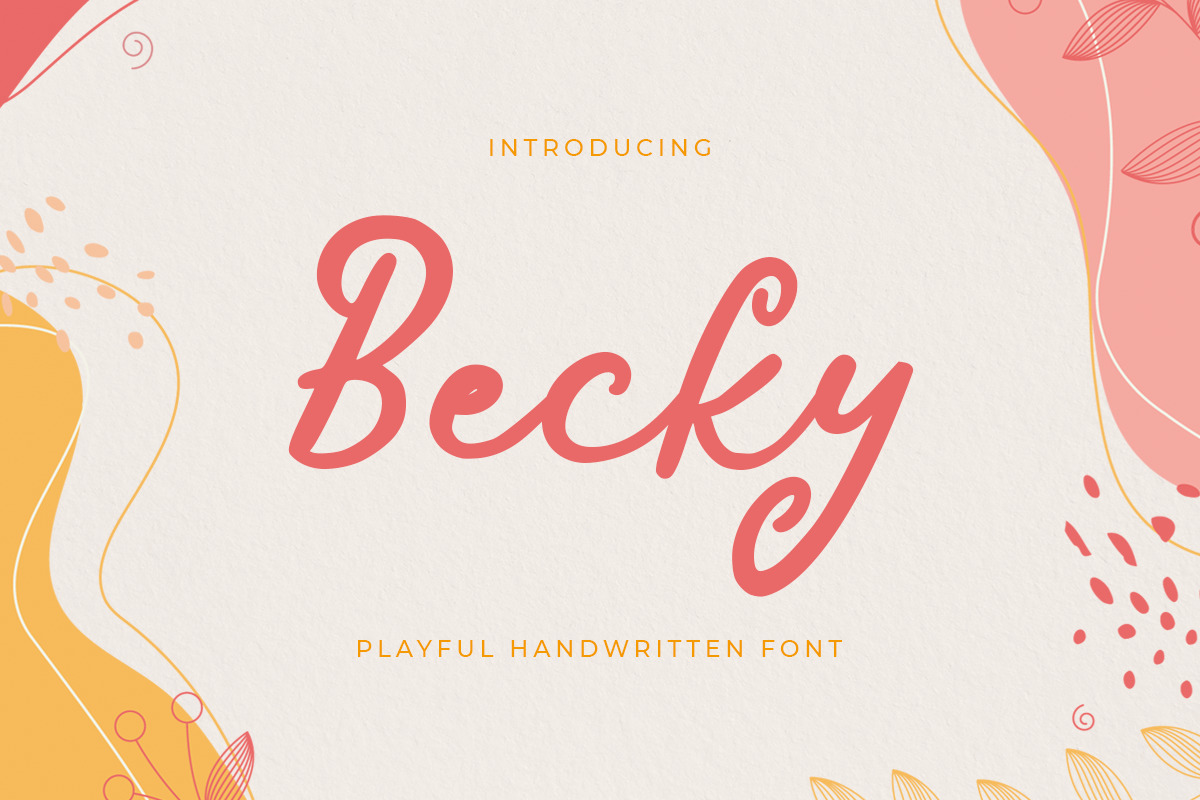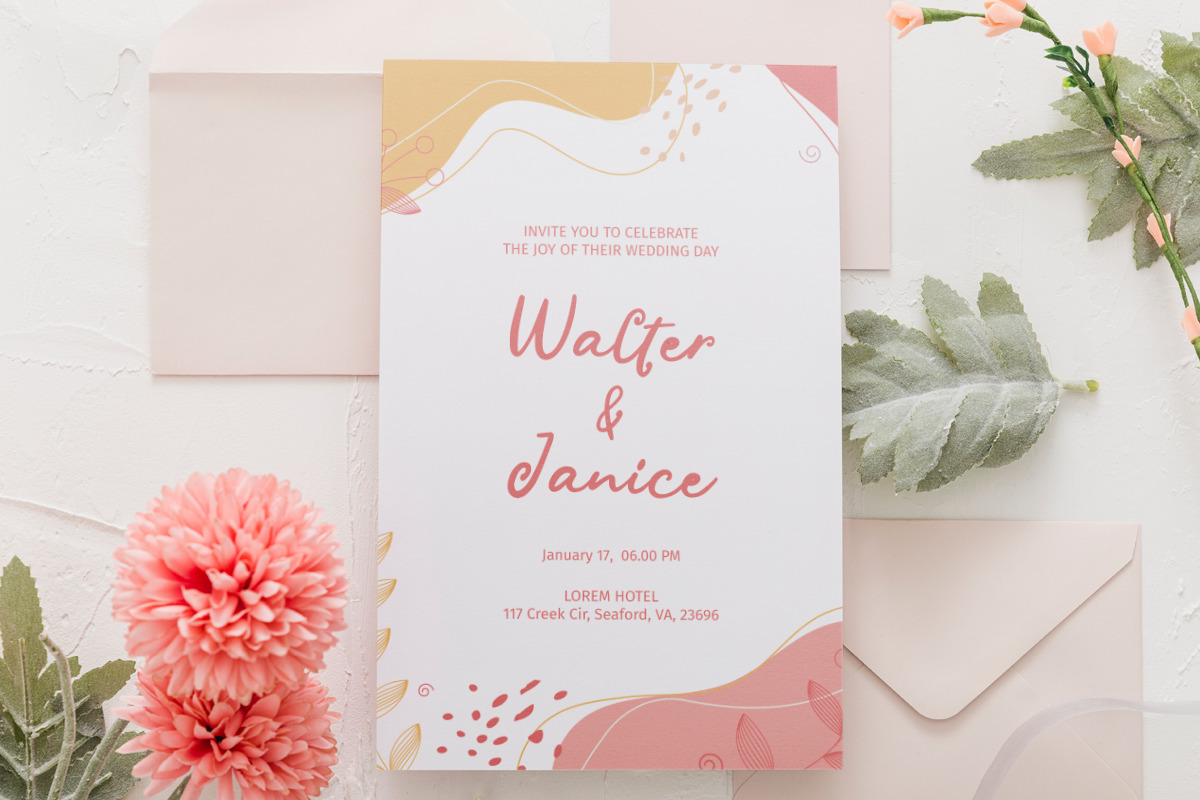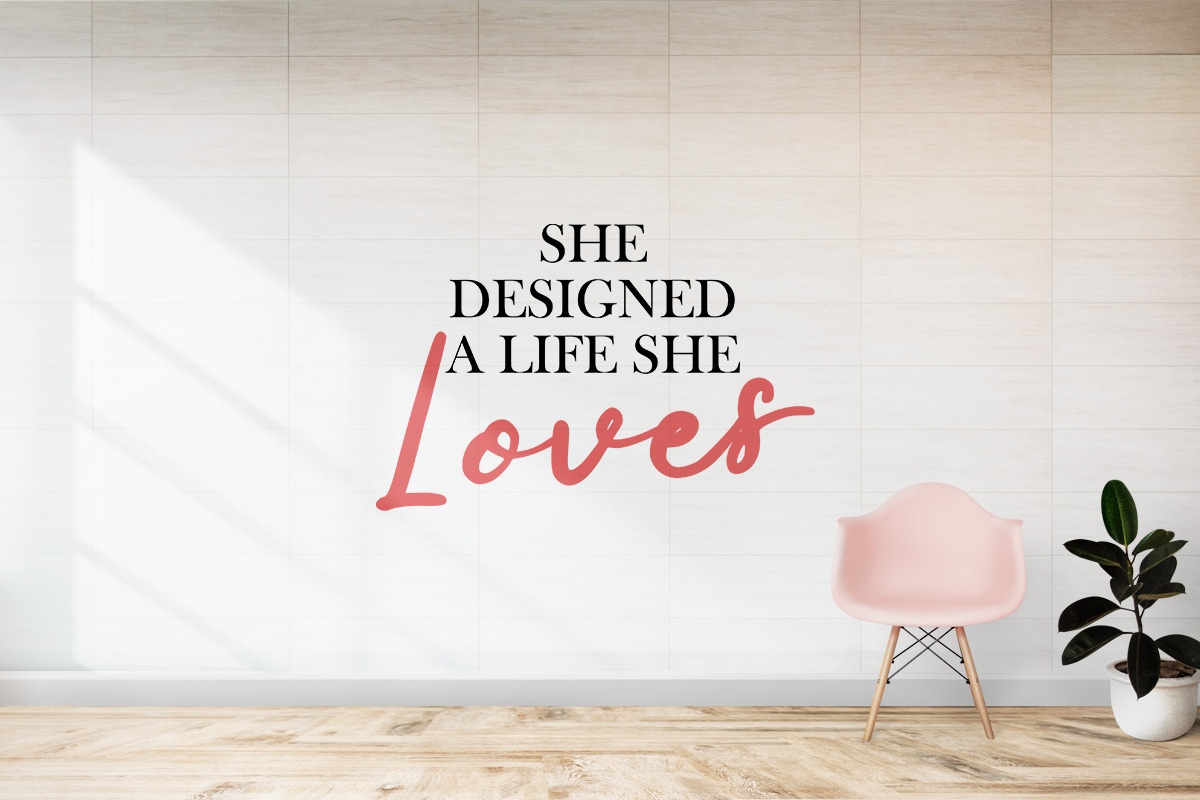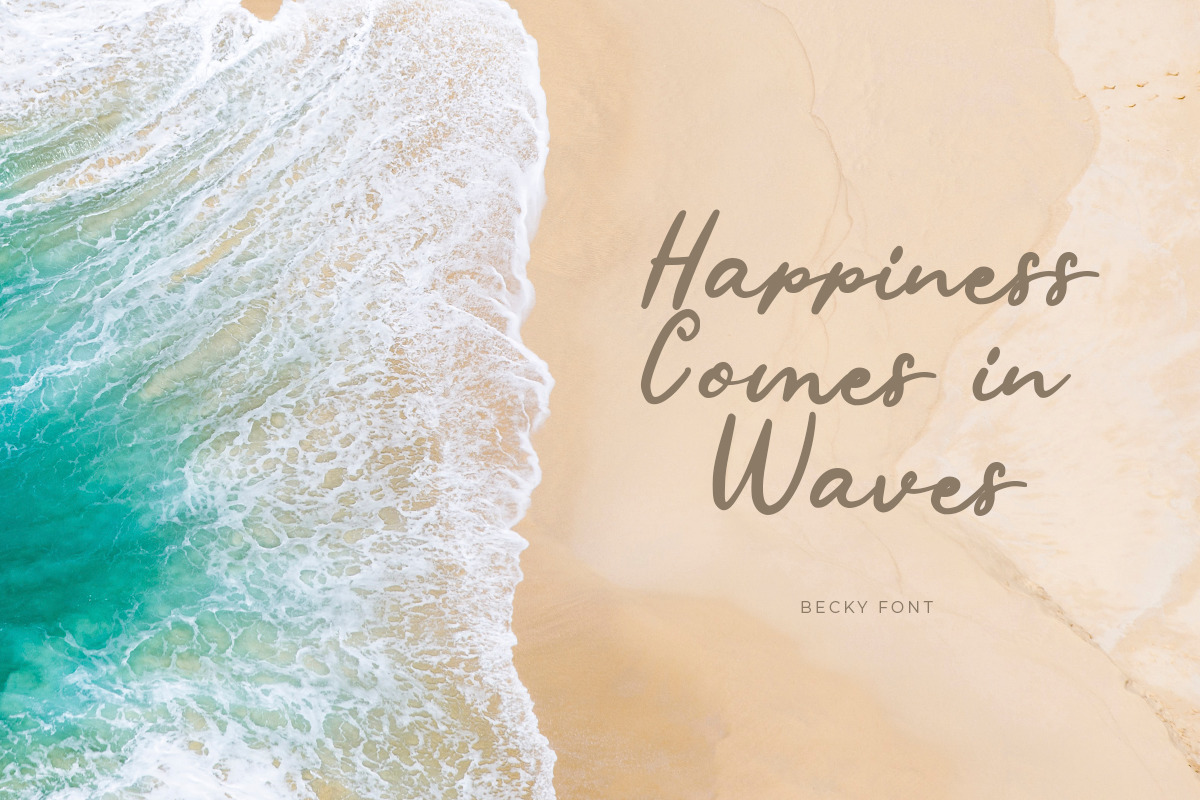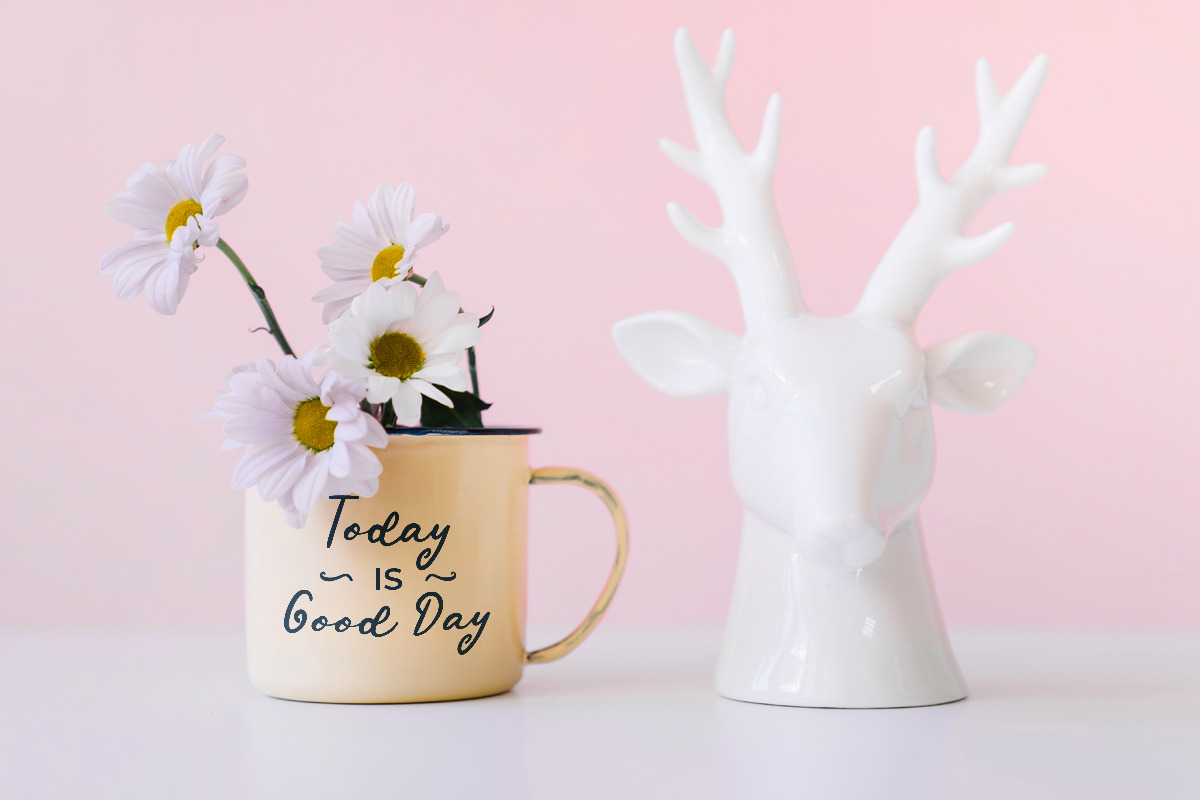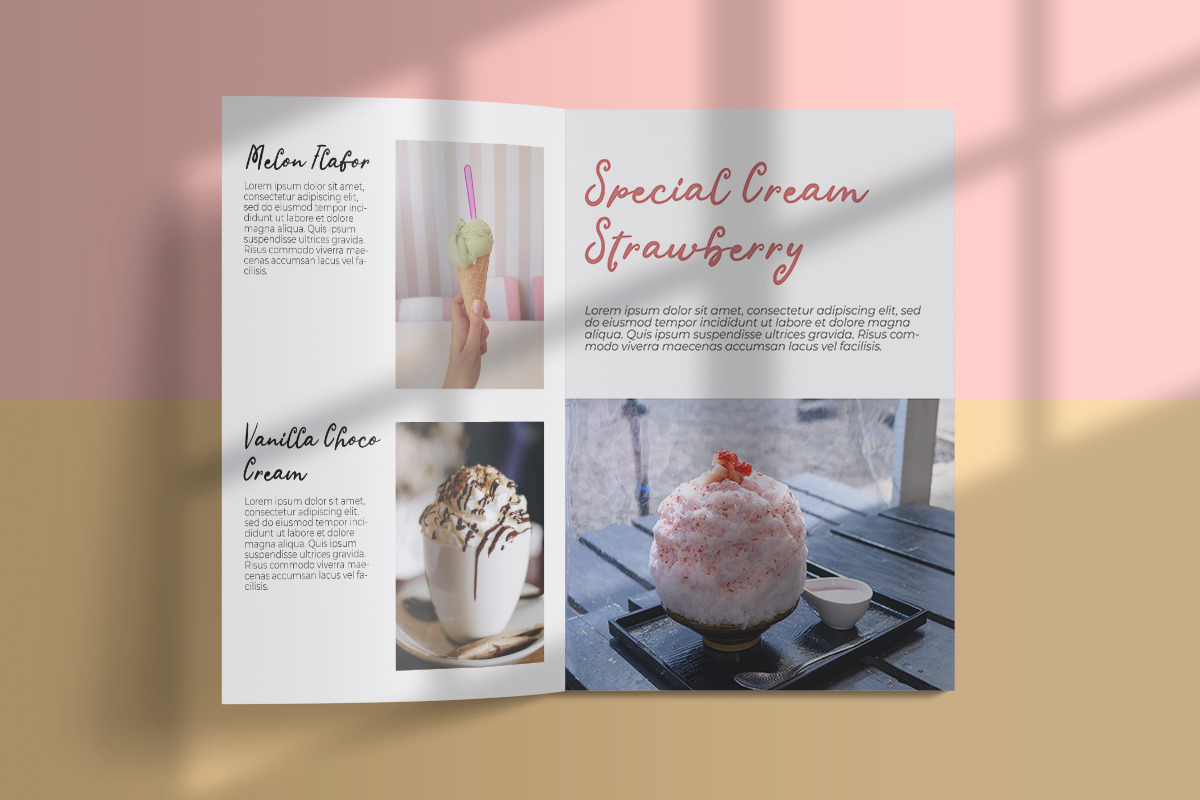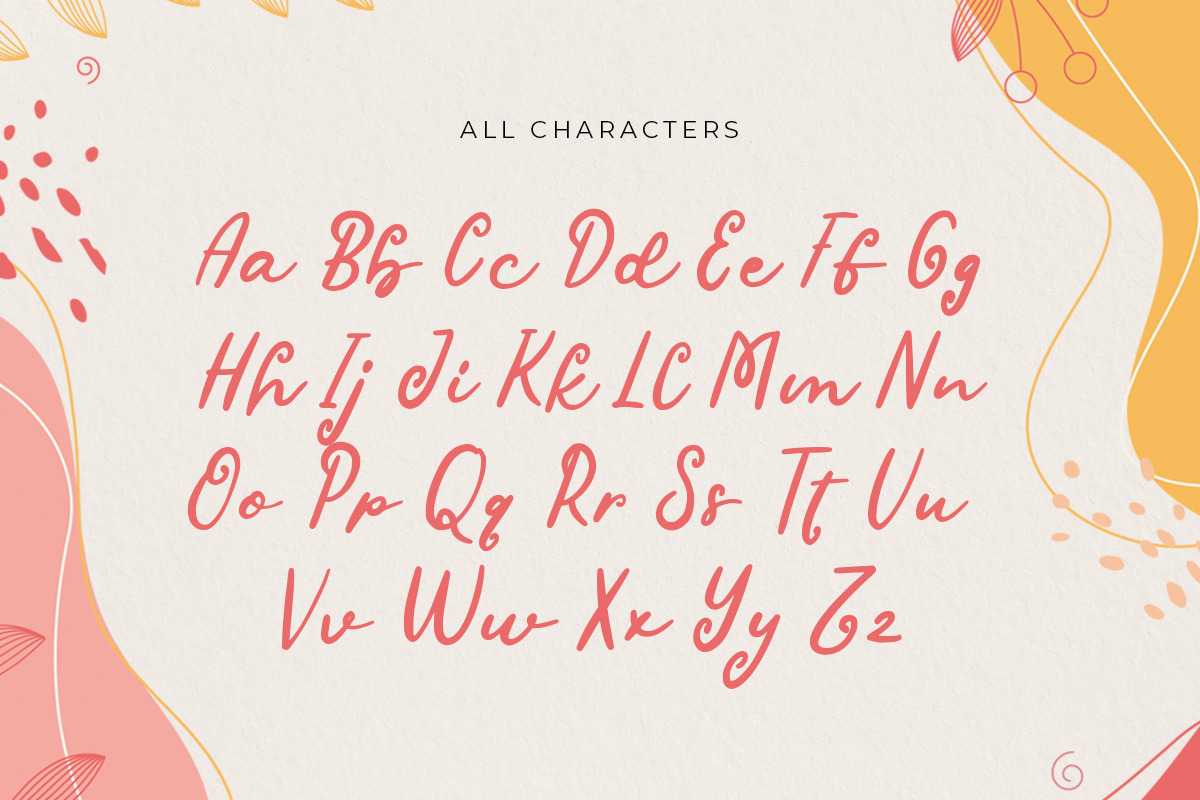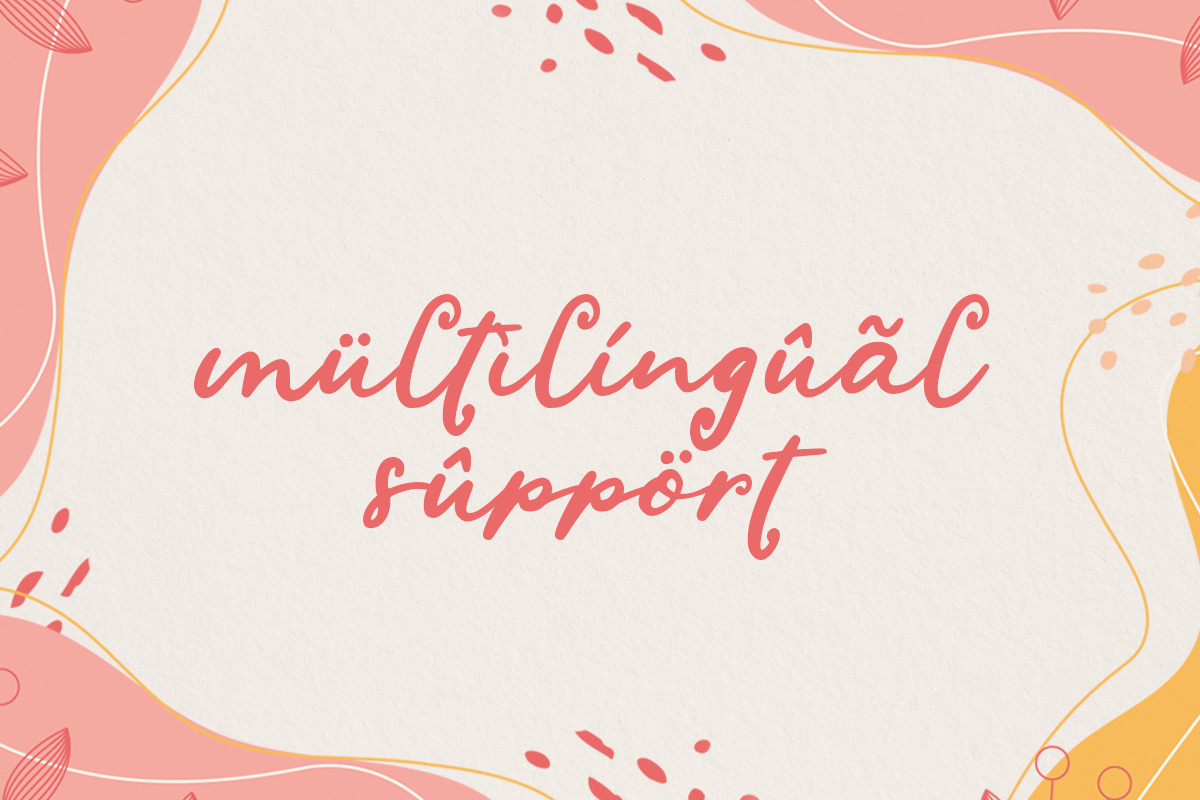
Becky – Playful Handwritten Font
Becky is A Modern Playful Handwritten font with nice and modern style and so beautiful. This font specially crafted for your project design or professional logo, modern for any designs such as product, merchandise, and so many more with easy to use but unique results are so professional. Enjoy to Design any your needs with cute, cheerful, and charming feel.